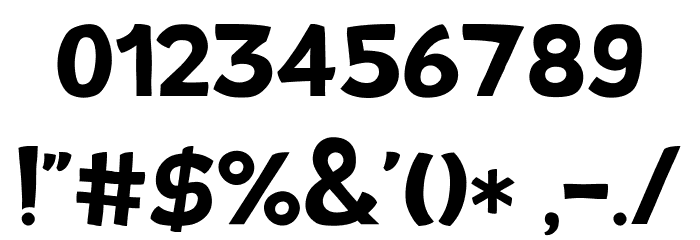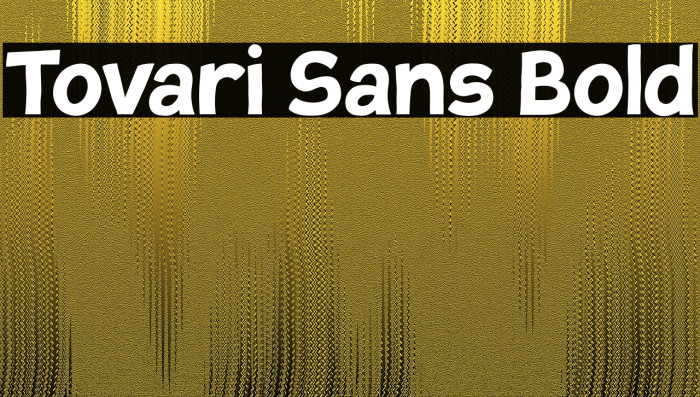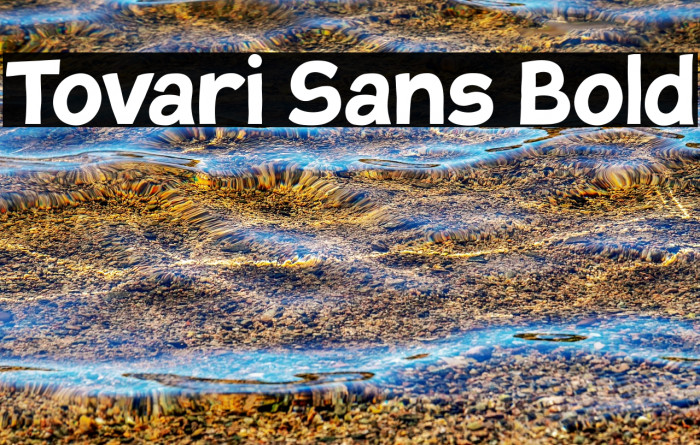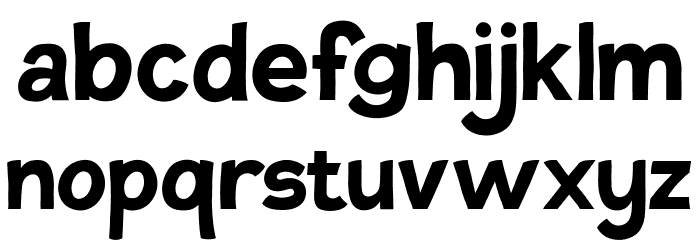
Tovari Sans Bold Font
This font features a bold, playful design with rounded edges and a slightly irregular shape, giving it a friendly and approachable appearance. The characters are well-balanced, with a consistent stroke width that maintains readability while adding a touch of whimsy. The uppercase and lowercase letters are distinct, with the lowercase having a slightly more rounded and softer look. The numerals are clear and easy to read, matching the overall style of the alphabet. Special characters are included, maintaining the same playful aesthetic. This font is versatile, suitable for both digital and print media, and works well in various sizes.
A bold, playful font with rounded edges and a friendly appearance.
• Proposed Projects: Ideal for children's books, playful branding, posters, and social media graphics.
• Category: Sans-Serif
• Bold: Yes
• Italic: No
• Weight: Bold
• Width: Normal
• Character Spacing: Normal
• Contrast: Low
• Overall Style: Playful, Modern
• Use Case: Headlines, Logos, Posters